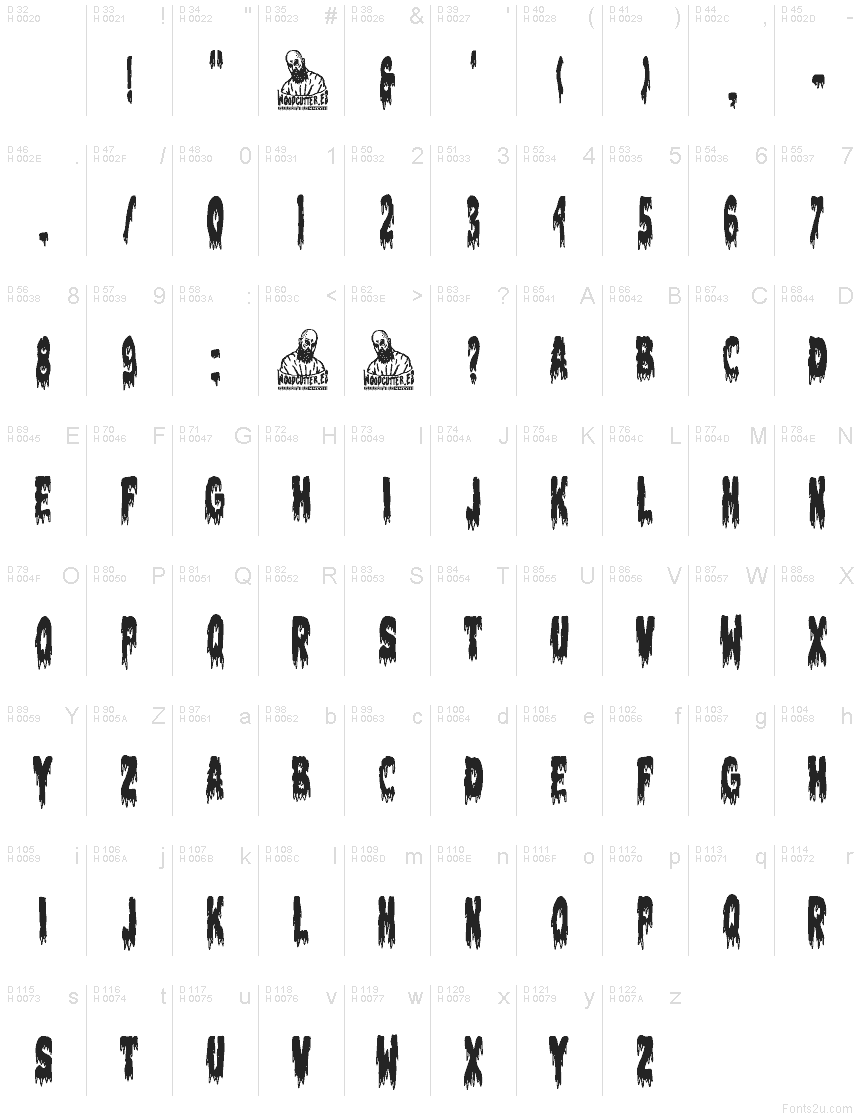
Democracia
Democracia font by Woodcutter is a scary display font that creates shadows even before the sun sets. It has a truly horrifying overall appearance, and an atmosphere that can cover readers with the feeling of chills. Additionally, this grunge and distressed typeface completes your visions in style with its irregular contours.
Sometimes things really do go bump in the night, and most Halloween-related projects require such anticipation. From movie or book covers to websites dealing with thrillers or actual horror shows, this is one element that'll take the visual experience to new heights. Spook up posters, t-shirts, packaging boxes and every other design you create using this free font!